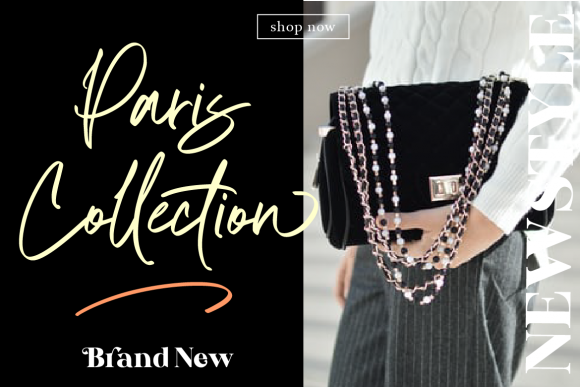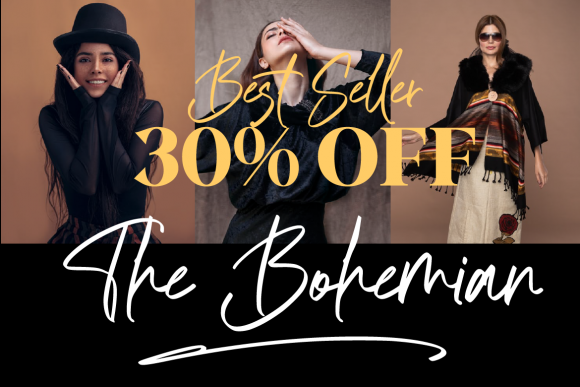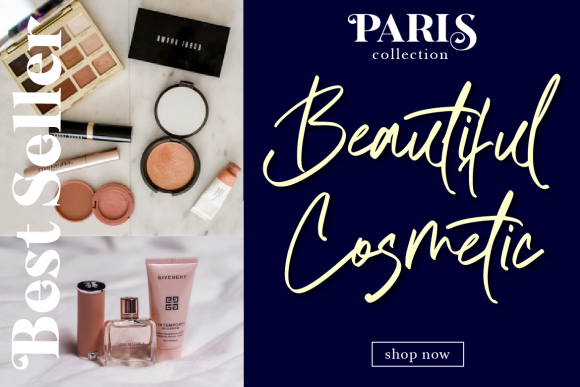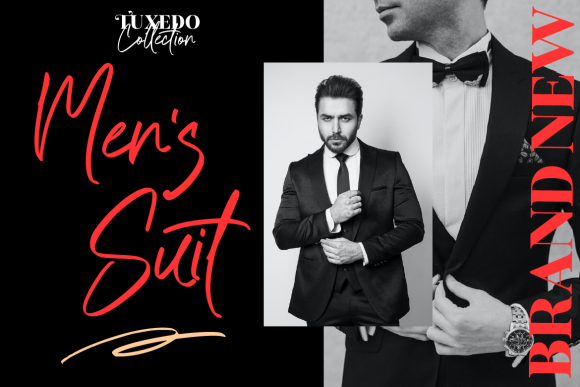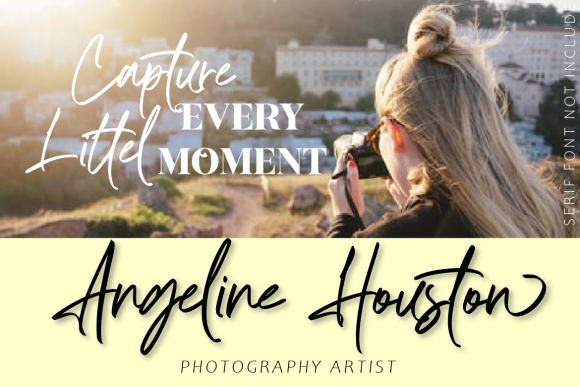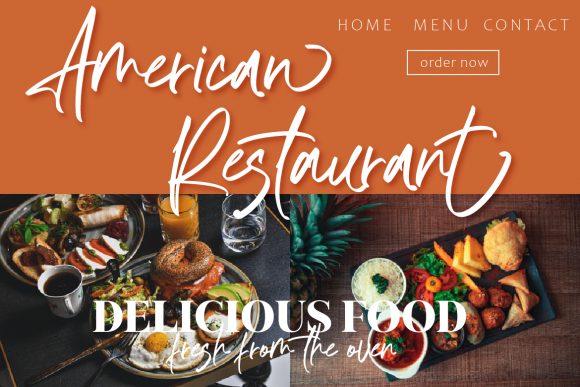
Introduction to Amatya Signature Font
As a designer, there’s nothing quite like the thrill of bringing a creative project to life. You’ve poured over every detail, carefully selecting the perfect color palette and typography to match your vision. But sometimes, that one elusive font can make all the difference between a good design and a great one. That’s where the Amatya Signature Font comes in – a stylish and elegant script font that’s perfect for adding a handwritten touch to your designs.
Whether you’re working on a wedding invitation, a thank you card, or a logo, the Amatya Signature Font is sure to elevate your design to the next level. With its high-quality design and transparent background, this font is a valuable resource for any designer looking to add a touch of sophistication to their work. And the best part? It’s available for free download, making it a must-have for any creative project.
Key Features of Amatya Signature Font
- Unique Design: Amatya Signature Font offers a distinctive and elegant design perfect for creative projects that require a touch of sophistication.
- High-Quality Graphics: This font is designed with high-quality graphics, ensuring a crisp and clear display on various devices.
- Transparent Background: The font features a transparent background, allowing users to easily place it over any image or design without any distractions.
- Resolution: The font is designed with a high resolution of 300 DPI, making it suitable for both web and print designs.
- Perfect for Creative Projects: Amatya Signature Font is ideal for creative projects such as logos, business cards, and invitations, where a unique and elegant design is required.
As a designer, I’m always on the lookout for high-quality design resources that can elevate my creative projects. Recently, I had the chance to try out the Amatya Signature Font, and here’s my honest review.
What works well: ✨ The Amatya Signature Font has a unique and elegant design that’s perfect for projects that need a touch of sophistication. The font is highly legible and versatile, making it suitable for a wide range of applications, from business cards to brochures. I also appreciate the transparent background, which makes it easy to use with different backgrounds and designs.
Overall, I’m impressed with the Amatya Signature Font’s design and versatility. While it may not be the most affordable option, its unique style and high quality make it a worthwhile investment for designers looking to elevate their creative projects.
- Unique and elegant design
- Highly legible and versatile
- Perfect for business cards, brochures, and other creative projects
The Amatya Signature Font is a high-quality design resource perfect for creative projects. With its unique and elegant style, it can elevate your branding and marketing materials. To get the most out of this font, follow these steps:
Use the Amatya Signature Font for:
Branding materials (business cards, letterheads, etc.)
Marketing materials (posters, flyers, etc.)
Digital designs (social media graphics, website headers, etc.)